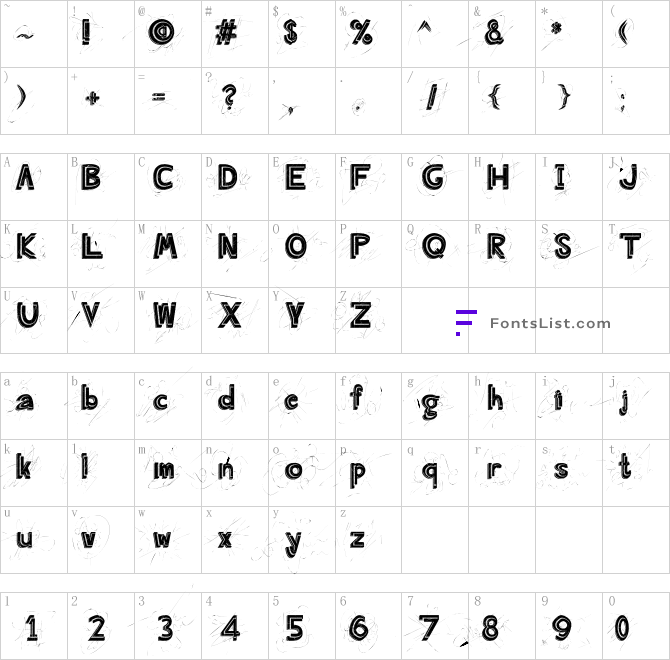
- Font Name:Angry Prego
Angry-Prego.ttf is a very beautiful artistic font, Angry-Prego.ttf is widely used in the design and printing of various books and pictures,Angry-Prego.ttf has a strong visual impact,Angry-Prego.ttf is a commonly used font in newspapers, magazines and books, and is used in posters, e-commerce Poster design, store design, logo design, font design and other fields.Angry-Prego.